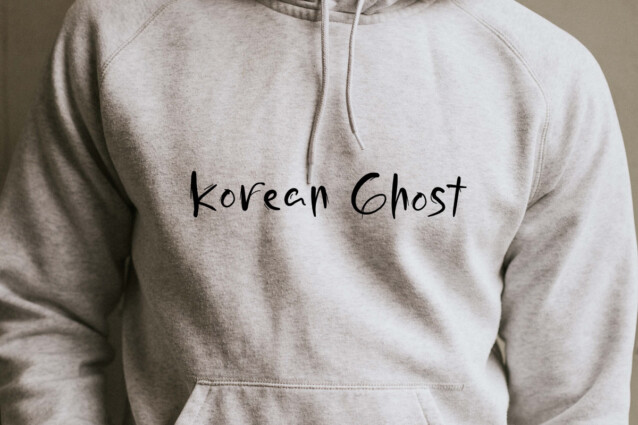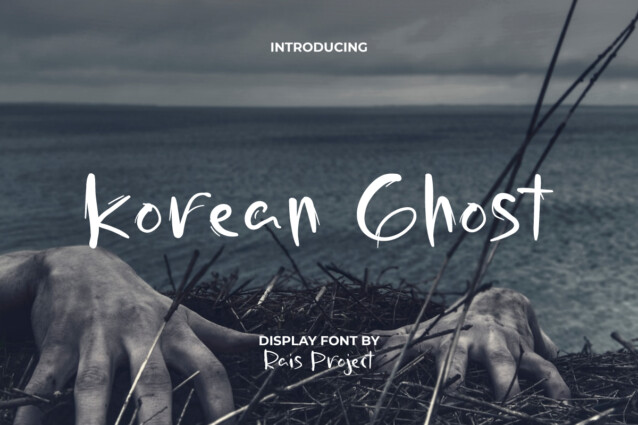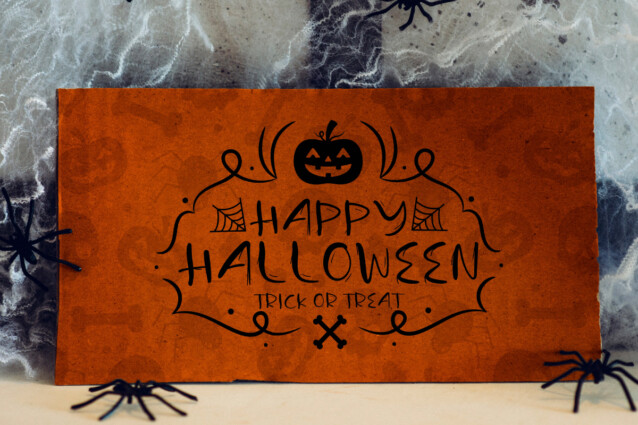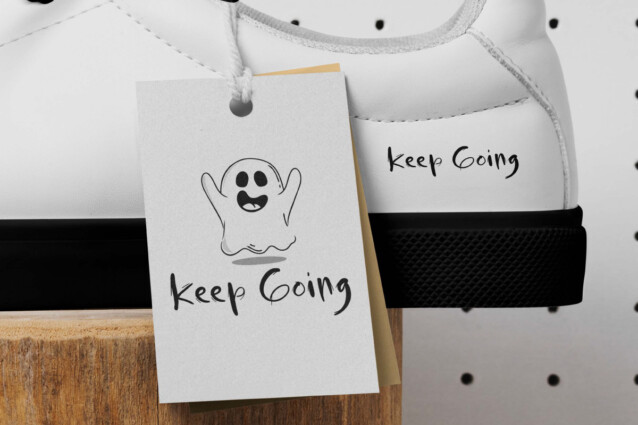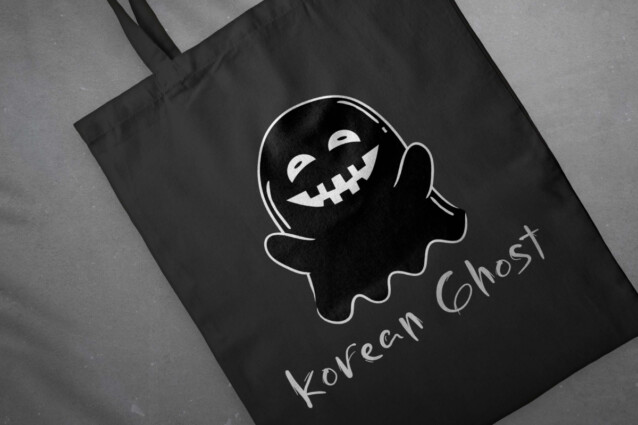
Korean Ghost Font
Korean Ghost Font is a horror display font by RaisProject. If you have plans to make a design with a spooky theme, you can use this font to show its witchery! It will be good for any designs, such as advertisement, brand image, cover, custom design, greeting card, invitation, magazine, menu, poster, product packaging, quote, web page, and more!
RaisProject